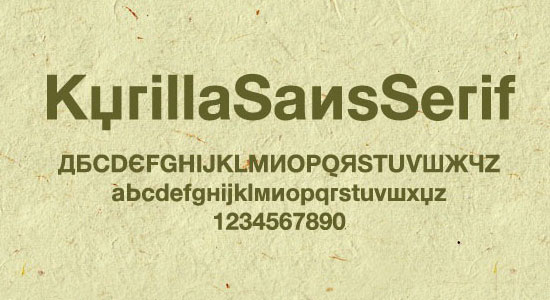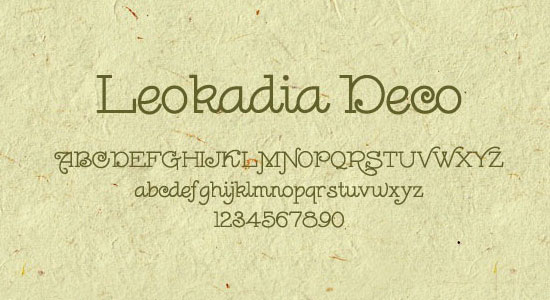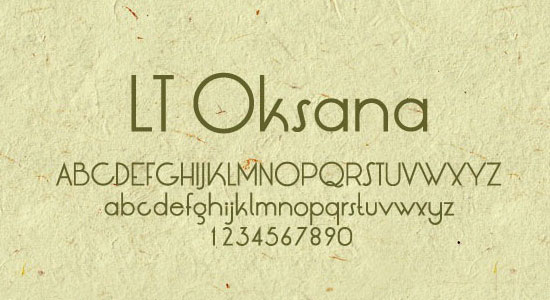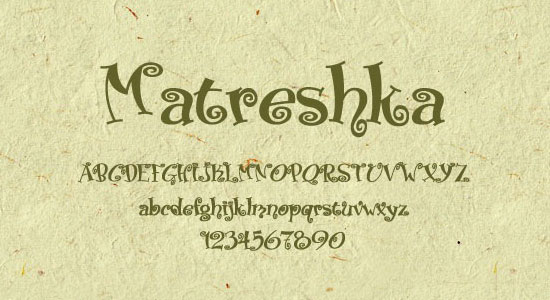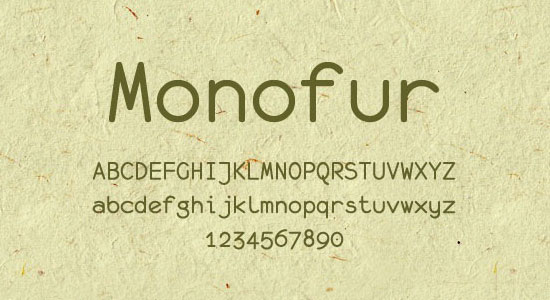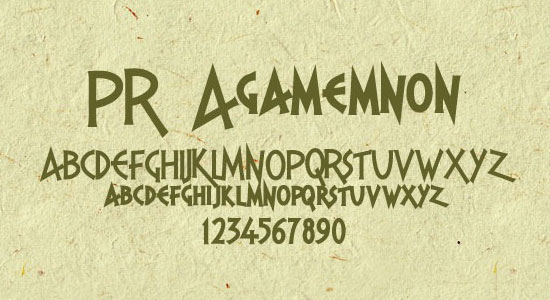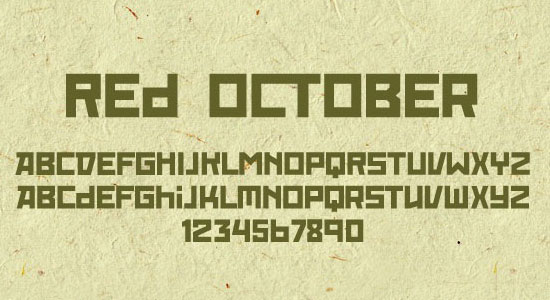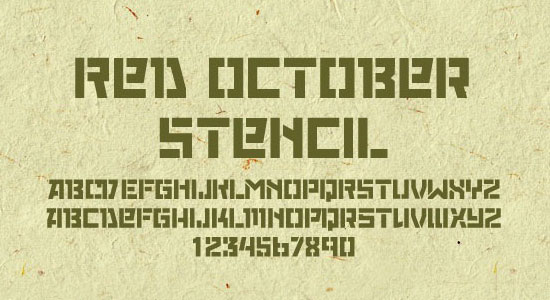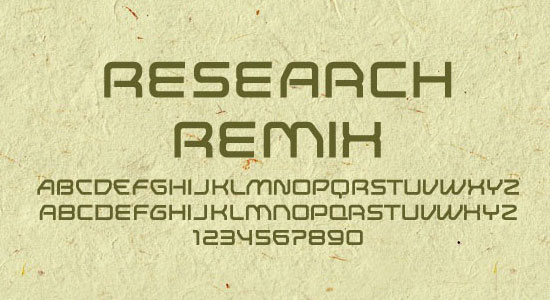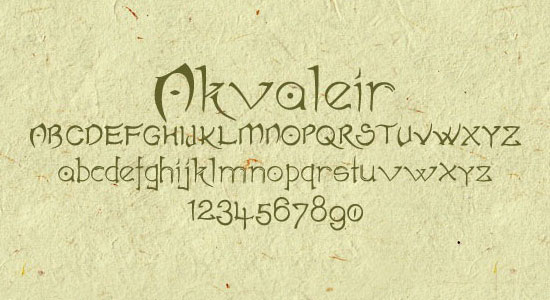
15+ Cyrillic Fonts for Free Download
The Cyrillic script or azbuka is an alphabetic writing system. It is based on the Early Cyrillic fonts, which was developed in the First Bulgarian Empire during the 10th century AD at the Preslav Literary School.[1][2] It is the basis of alphabets used in various languages, past and present, in parts of the Balkans and Northern Eurasia, especially those of Slavic origin, and non-Slavic languages influenced by Russian. As of 2011 around 252 million people in Europe and Asia use it as the official alphabet for their national languages. About half of them are in Russia.[3] Cyrillic is one of the most used writing systems in the world.
Cyrillic is derived from the Greek uncial script, augmented by ligatures and consonants from the older Glagolitic alphabet and Old Church Slavonic for sounds not found in Greek. It is named in honor of the two Byzantine Greek brothers, Saints Cyril and Methodius, who created the Glagolitic alphabet earlier on. Modern scholars believe that Cyrillic was developed and formalized by early disciples of Cyril and Methodius.
With the accession of Bulgaria to the European Union on 1 January 2007, Cyrillic became the third official script of the European Union, following the Latin and Greek scripts.
Akvaleir
An Unfortunate Event
DS Quadro
Eurofurence Light
Galeria Coruna
Geisha
Hetarosia
Kinryu
KyrillaSansSerif
Leokadia Deco
LT Oksana
Matreshka
Monofur
PR Agamemnon
Red October
Red October Stencil
Research Remix
Ticker Tape
Advokat Modern